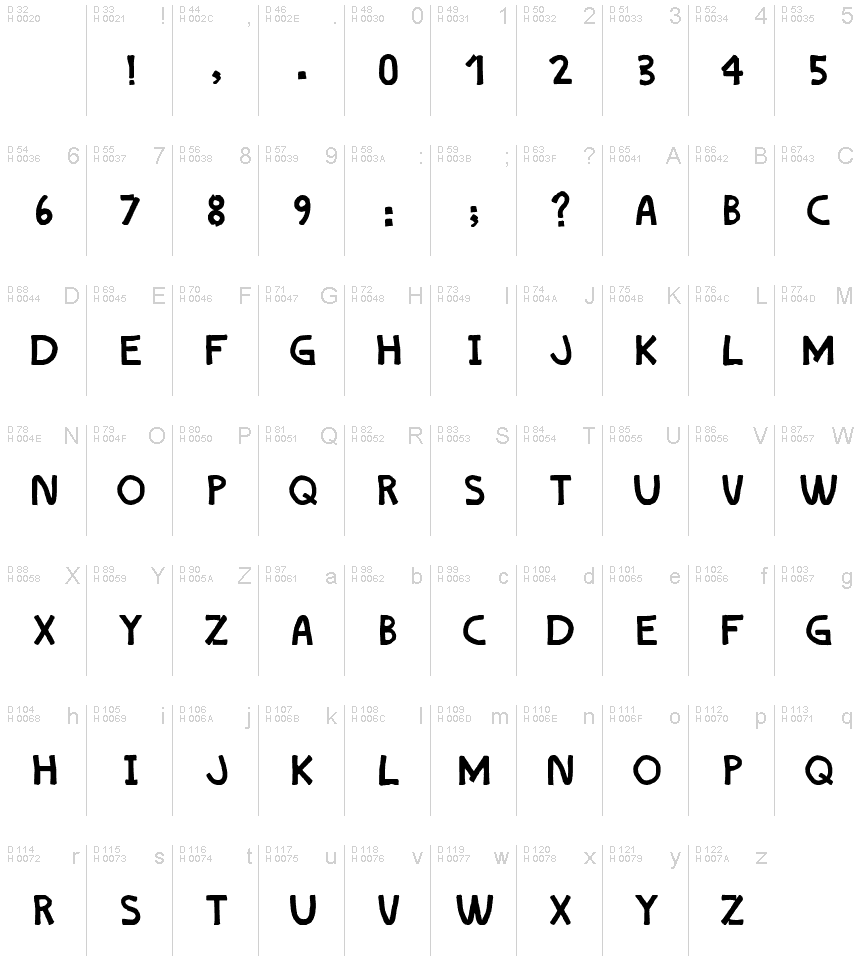
Coletspunch Regular
Coletspunch, designed by macterine, is a playful display font that adds a touch of whimsy to any project. Its cartoon uppercase style and semi-bold weight make it perfect for children's books, comics, and even packaging design. Use it to create attention-grabbing headlines or to add a fun element to your branding materials. Coletspunch is sure to delight both young and young-at-heart audiences. Its bold strokes and unique character designs make it stand out among other display fonts. Add some personality to your next project with Coletspunch!